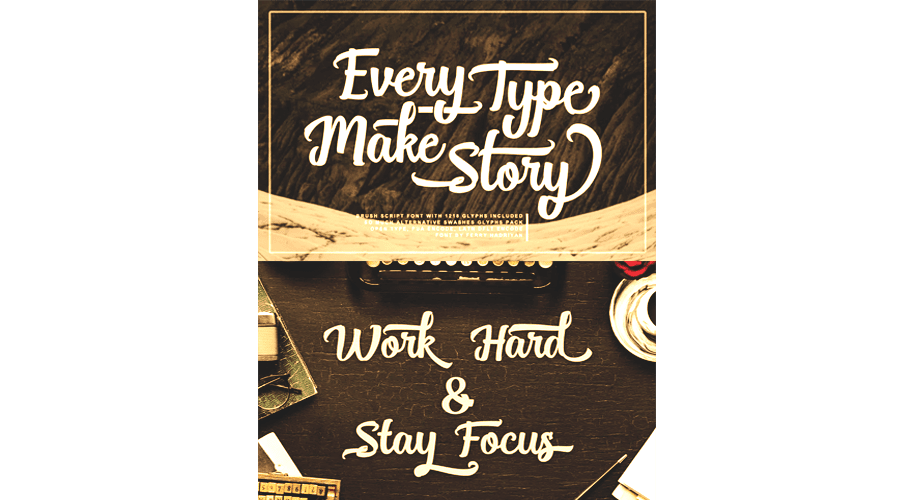
Break Stones Script Brush Font
Introducing, Break Stones Script Brush Font! FeyTypeDesign created and shared on September 11, 2018.
Break Stones is a Script Brush Font with an Advanced Class that includes 1218 Glyphs and many other OpenType features. The font is available in TrueType and OpenType format. This compatible with Windows, Apple/Mac, Linux, Cricut, Silhouette and Other cutting machines. Web fonts can readily be transformable from fonts like Break Stones Script Brush Font. This decorative font is categorized in Script font and brush font. Similar Looking fonts are Winstonia Modern Calligraphy Font, Scarletty Brush Script Font, Real Stones Script Font Free etc.
Break Stones Script Brush Font is ideal for design, theme styling, weddings, events, t-shirts, logos, badges, stickers, and other creative projects. This font is also perfect for writing quotes. It gives an elegant touch to any work. As a Script font, it may also be used in various writing projects.
| Style | Script font, Brush font |
| Designer | FeyTypeDesign |